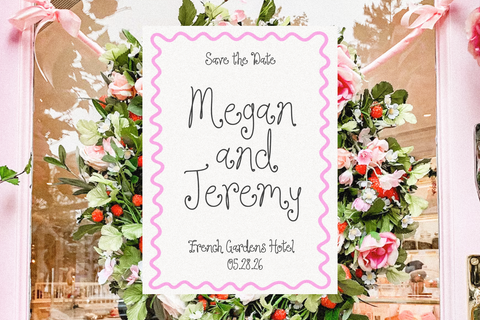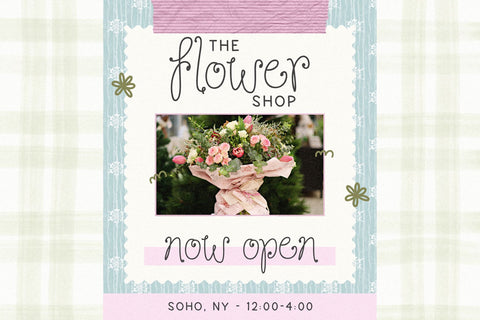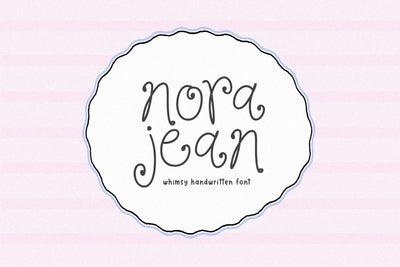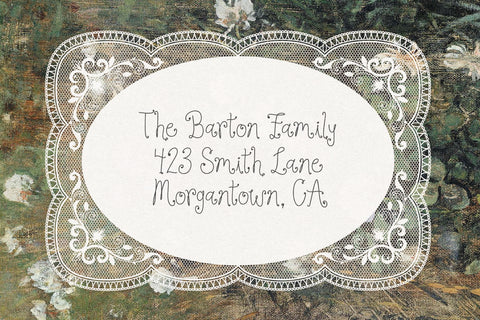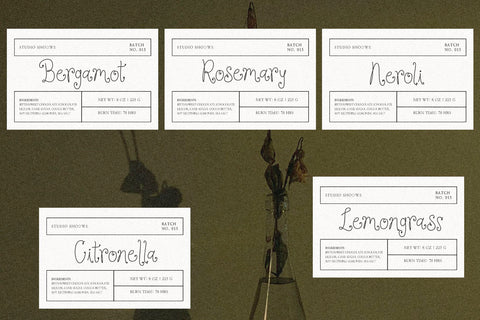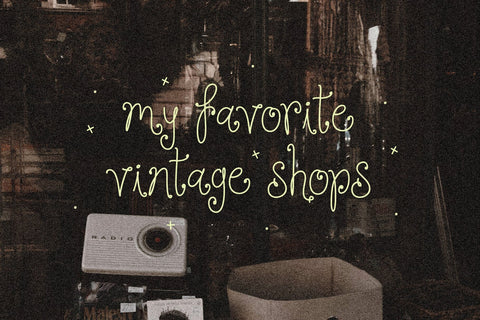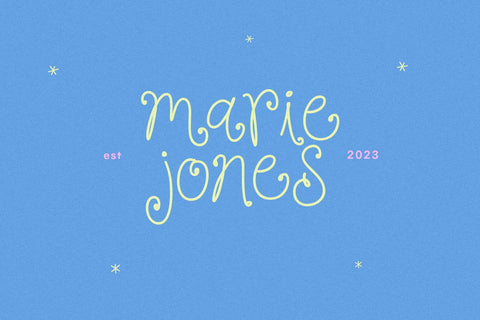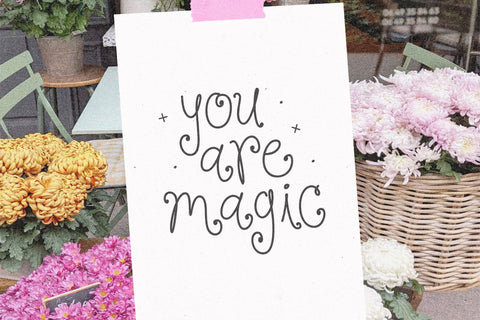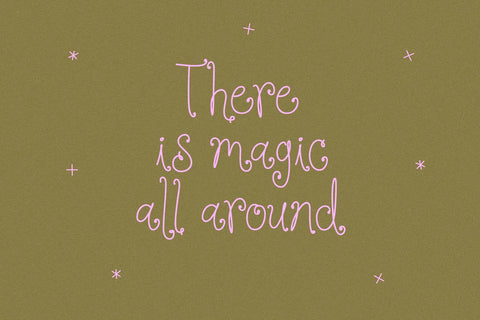
Nora Jean - Whimsy Handwritten Font
Nora Jean is a cute swirly + whimsy font.
This font is perfect for cricut projects, canva, logos, shirts, svg files, teachers, painted banners and more!